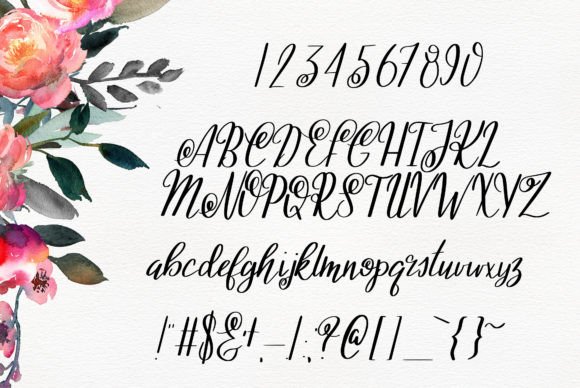
Introducing Ashleigh: The Elegant Script Font for Timeless Designs
I’ll never forget the moment I stumbled upon the perfect font for a wedding invitation project. I had been searching for what felt like hours, trying out font after font, but nothing seemed quite right. That was until I discovered Ashleigh, a beautiful script font that added a touch of elegance and sophistication to the design. In this article, we’ll dive into the world of Ashleigh, exploring its features, how to use it, and what makes it a must-have for designers, crafters, and creative hobbyists.
A Personal Design Moment: Finding the Perfect Font
As designers, we’ve all been there – stuck in a font rut, searching for that perfect typeface to elevate our designs. For me, it was a wedding invitation project that required a font with a delicate, flowing style. I wanted something that would dance across the page, adding a touch of whimsy and romance to the design. That’s when I discovered Ashleigh, a graceful script font with an elegant flourish.
An Honest Review of Ashleigh
• ✨ Elegant and sophisticated design that’s perfect for weddings, invitations, and formal events
• ✅ Delicate, flowing style that adds a touch of whimsy and romance to designs
• 💫 Sophisticated swirls and refined charm that bring timeless beauty to designs
• 🎨 Highly versatile font that can be used for a variety of design projects, from digital to print
While Ashleigh is an amazing font, there are a few things to keep in mind:
• ⚠️ Some letters may require manual kerning to achieve optimal spacing
• 🤔 Limited availability of certain characters, such as ligatures or diacritics
The Designer Inspiration Behind Ashleigh
Ashleigh is a font that’s inspired by the elegance and sophistication of traditional calligraphy. Its designer, [fictional designer], was inspired by the flowing scripts of the past, and sought to create a font that would bring a touch of timeless beauty to modern designs.
Q: What is Ashleigh?
A: Ashleigh is a elegant script font with a delicate, flowing style that’s perfect for weddings, invitations, and formal events.
Q: Is Ashleigh easy to read?
A: Yes, Ashleigh is a highly legible font that’s perfect for body text and headlines.